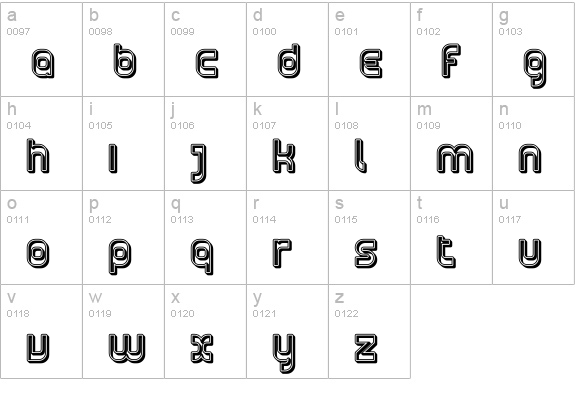
Plasmatica Open Font Details
Plasmatica Open font is a stunning display typeface that effortlessly combines modern aesthetics with a touch of futuristic elegance. With its sleek and fluid lines, this font captures attention and adds a dynamic element to any design project. Designed with creativity in mind, Plasmatica Open font offers a wide range of versatility, making it suitable for various applications such as branding, advertising, editorial design, and more. Its distinctive letterforms are imbued with a sense of energy and movement, creating a visual impact that is hard to ignore. What sets Plasmatica Open font apart is not only its unique design but also its accessibility. This font is freely available to download at FontsMarket.com, making it easily accessible to designers, creatives, and enthusiasts alike. Whether you are a professional designer or an amateur enthusiast, Plasmatica Open font offers you the opportunity to enhance your projects with a touch of sophistication, without breaking the bank. With its extensive character set, including uppercase and lowercase letters, numerals, punctuation marks, and special characters, Plasmatica Open font provides endless possibilities for customization and personalization. Its smooth curves and clean lines ensure legibility, even at smaller sizes, making it suitable for both print and digital applications. Whether you are looking to create eye-catching headlines, captivating posters, or striking logos, Plasmatica Open font is your go-to choice. Its versatility and modern appeal make it a valuable addition to any designer's toolkit. So why wait? Embrace the freedom of creativity and download Plasmatica Open font for free at FontsMarket.com today. Elevate your designs and captivate your audience with this exceptional typeface that brings your ideas to life with style and flair.